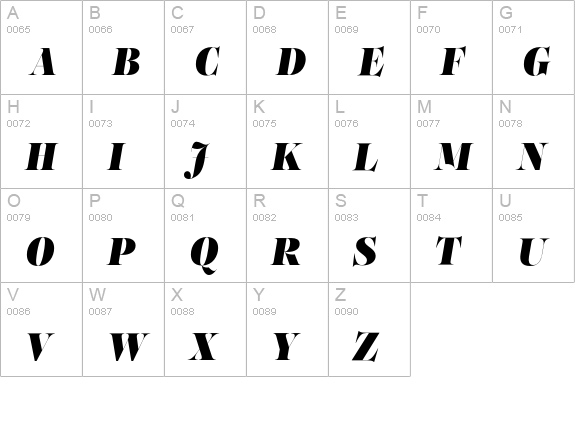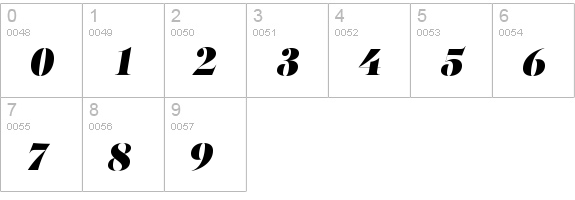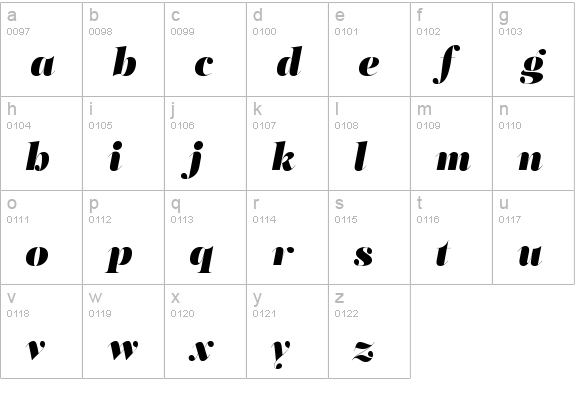
PFRegalFinessePro-UBlackItalic Font Details
PFRegalFinessePro-UBlackItalic is a stunning and elegant font that exudes sophistication and style. Its bold and italic design makes it perfect for creating eye-catching designs that demand attention. The sleek curves and sharp angles of this font give it a modern and luxurious feel, making it ideal for projects that require a touch of class. This font is not only visually striking but also highly versatile, suitable for a wide range of design applications including branding, advertising, headlines, and more. Its bold and italic characteristics make it stand out in any design, adding a touch of elegance and flair. Best of all, PFRegalFinessePro-UBlackItalic is available for free download at FontsMarket.com, making it accessible to all designers looking to elevate their projects with a touch of sophistication. Don't miss out on this opportunity to add a touch of finesse to your designs with this exquisite font.